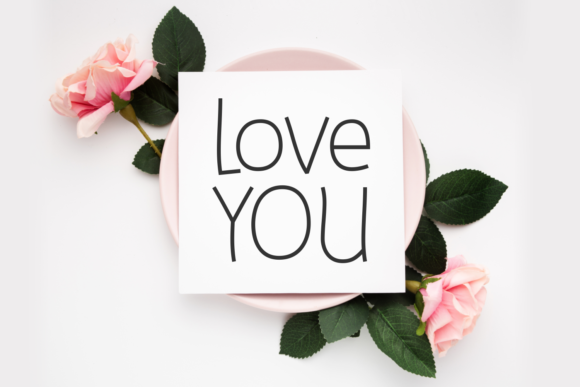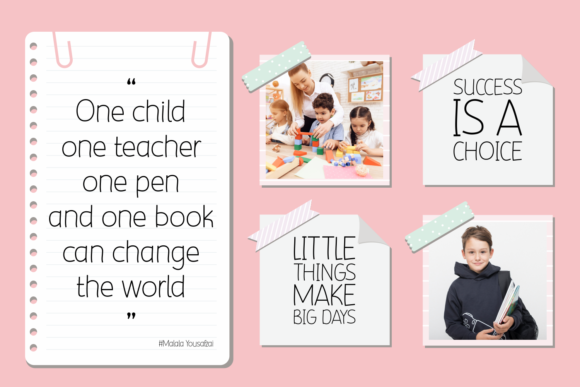
Simple School Font
db-ku.com - Script & Handwritten -- Simple School is a beautiful handwritten font perfect for any design you wish to create. Add it to any of your creative projects, and you will be amazed by its outstanding effect!